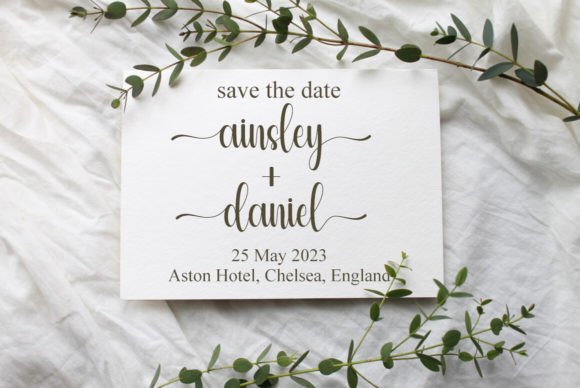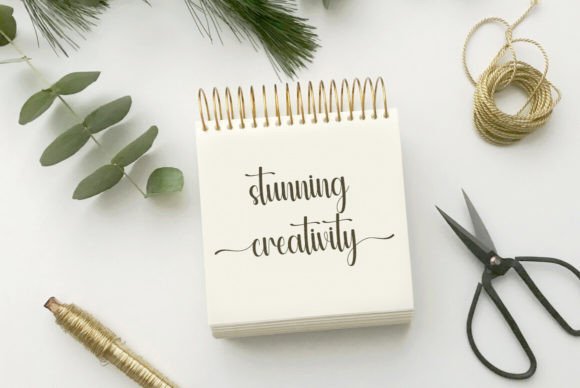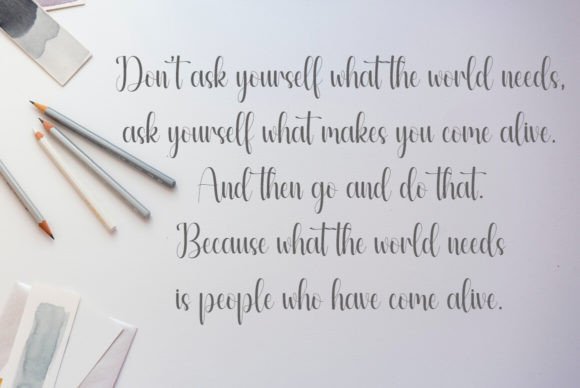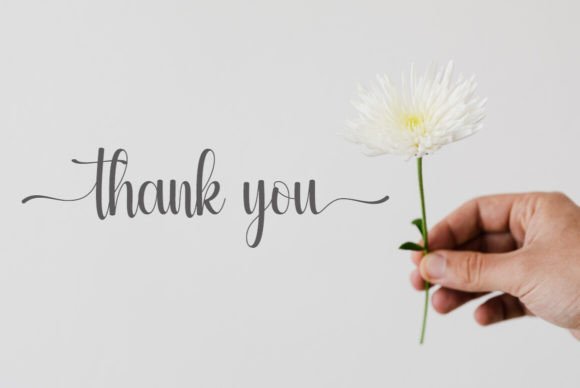
Introduction to Liontine Font
Have you ever stared at a blank canvas, eager to bring your creative vision to life, only to be stumped by the perfect font to match your design’s elegant charm? That’s where the Liontine Font comes in – a delicate, flowing handwritten font that’s as beautiful as it is versatile. Its timeless style is sure to elevate any design project, from wedding invitations to artistic posters.
As a valuable design resource, the Liontine Font offers a high-quality solution for creatives seeking a unique and sophisticated touch. With its PUA encoding, you can easily access all the glyphs and swashes, making it a breeze to customize and perfect your designs. Whether you’re working on a high-profile project or simply want to add a personal touch to your social media graphics, the Liontine Font is the perfect companion for your creative journey.
Key Features of Liontine Font
- Designed with a modern aesthetic, the Liontine Font is perfect for designers seeking a stylish design element.
- Characteristics include a sleek, elegant appearance and a high level of customization options.
Honest Review: Liontine Font
I recently had the chance to work with the Liontine Font, and I’m excited to share my honest thoughts on this design resource. In my experience, high-quality fonts can make or break a creative project, and Liontine Font definitely delivers.
- ✨ High-quality design: The Liontine Font is sleek, modern, and professional. It’s perfect for any project that requires a clean and sophisticated look.
While the Liontine Font is an excellent choice for many projects, I did encounter some limitations:
- ⚠️ Limited font weights: The font only comes in a few weights, which may limit its versatility for certain projects.
- ⚠️ No italic or oblique styles: If you need to add emphasis or create a sense of movement, the lack of italic or oblique styles may be a drawback.
Overall, I’m impressed with the Liontine Font. Its high-quality design, free download, and transparent background make it a valuable resource for designers. While it may not be perfect, it’s an excellent choice for many creative projects.
Tips for Getting the Most Out of the Liontine Font
Use the Liontine Font on a transparent background to create a seamless design. Experiment with different font sizes and styles to create visual interest. The Liontine Font is a versatile design resource that can be used in a variety of creative projects.
The Liontine Font is commonly used in wedding invitations, business cards, and other design projects that require a touch of elegance and sophistication. It’s also a great choice for creating high-quality graphics and presentations that require a professional look.
Can I customize the Liontine Font to suit my design project?
While the Liontine Font is a high-quality design resource, it’s not intended for extensive customization. However, you can adjust font sizes, colors, and spacing to suit your design project’s requirements. If you need more advanced customization options, consider using a font editing software or consulting with a professional designer.